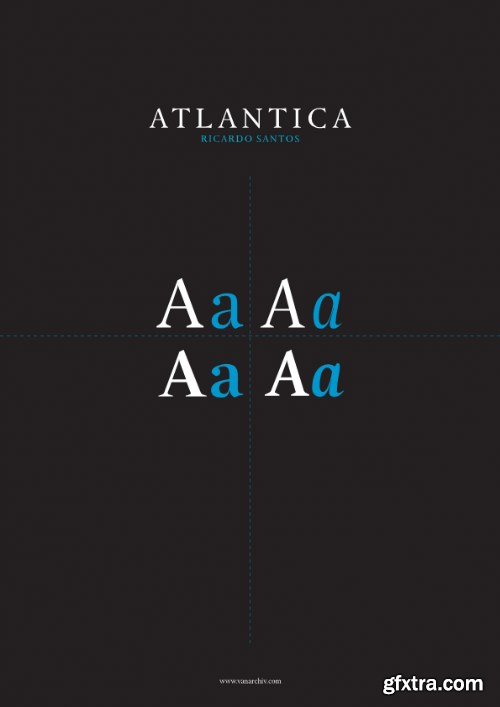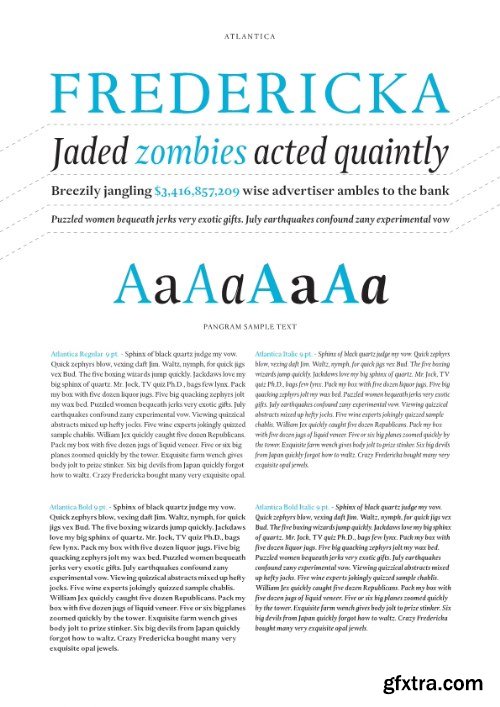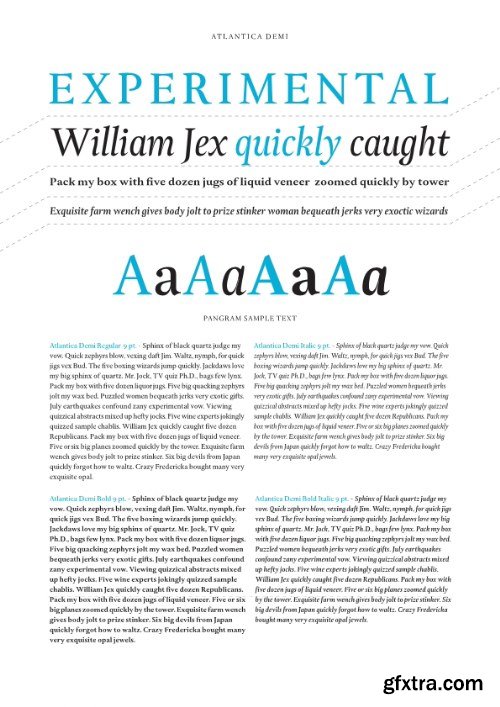
Atlantica was designed in 2004-2005 and it is a transitional typeface. The stress is vertical between thick and thin strokes.The size of x-height and the openness of the letterforms make this face very legible at small sizes.The italics are real italics, not sloped roman and the typographic color is narrower than the upright version.
There are only two different weights in each version, regular and bold. All weights contain the full Western European character set, and the euro symbol in two distinctive versions, a tall one to go with the lining figures (€) and another adapted to the small caps (€). Each weight has common ligatures (fi, fl) but the Atlantica Ligatures set provides extended possibilities for different combinations (ff, ffb, fb, ffh, fh, ffi, ffj, fj, ffk, fk, ffl, ffr, fr, fft, ft, ffy, fy, Th, ct).
For advanced typographic features the Open Type version includes ligatures for each weight.